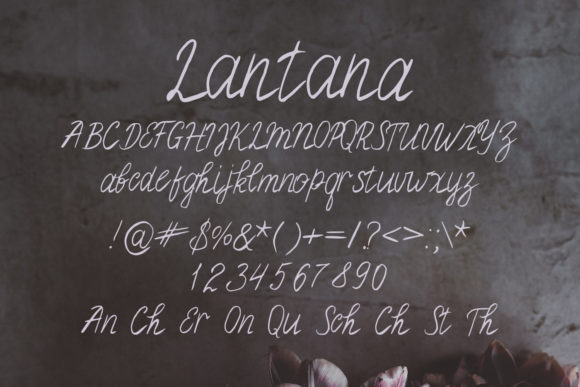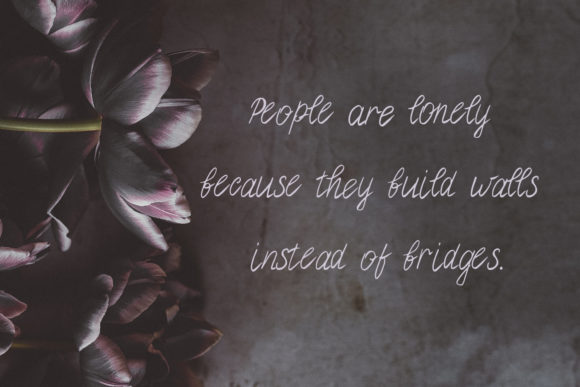
Introduction to Lantana Font
As designers, we’ve all been there – staring at a blank canvas, trying to bring a creative project to life. The perfect font can be the missing piece that sets your design apart and makes it truly special. And that’s exactly what the Lantana Font offers – a stylish and delicate font that exudes a clean, thin, and smooth vibe.
Whether you’re working on a logo, wedding invitation, or signage, the Lantana Font is a valuable design resource that can elevate your project to the next level. With its transparent background and high-quality design, it’s the perfect addition to any creative endeavor.
Key Features of Lantana Font
- High-quality design resource perfect for creative projects, offering a unique and stylish touch.
- Transparent background, allowing for seamless integration into any design without visual distractions.
- Designed to be versatile, the Lantana Font is ideal for use in various creative projects, including logos, branding, and editorial content.
Honest Review: Lantana Font
I recently stumbled upon the Lantana Font and I must say it’s a fantastic design resource for any creative project. This free download has quickly become a staple in my design toolkit.
- What works well: ✨ The font’s clean and modern aesthetic makes it perfect for a variety of applications, from digital displays to print materials.
- What works well: ✨ The font’s high quality is evident in its crisp lines and well-balanced typography.
- ⚠️ The font doesn’t support a transparent background, which can be a bit restrictive for certain design projects.
Overall, I’m impressed with the Lantana Font. Its versatility and high quality make it an excellent choice for designers looking for a reliable and stylish font. While it may have a few limitations, I believe it’s a valuable addition to any design resource library.
Getting the Most Out of Lantana Font
To maximize the potential of the Lantana Font, use it on a transparent background to create a visually appealing design. You can also experiment with different font sizes, colors, and styles to achieve a unique look that suits your creative project.
Common Use Cases for Lantana Font
The Lantana Font is suitable for a wide range of applications, including logo design, branding, and marketing materials. Its high-quality design and versatility make it an excellent choice for creative projects requiring a professional and stylish touch.